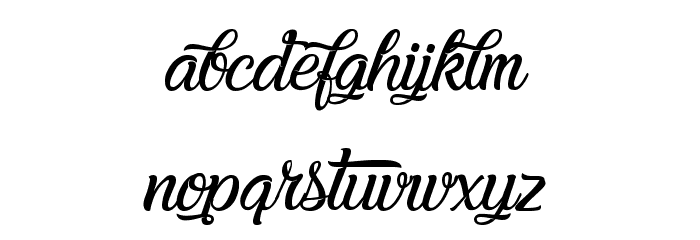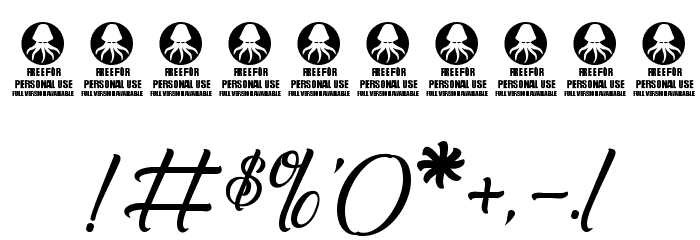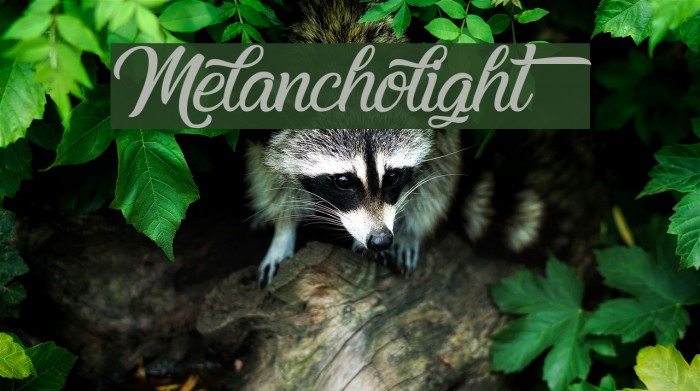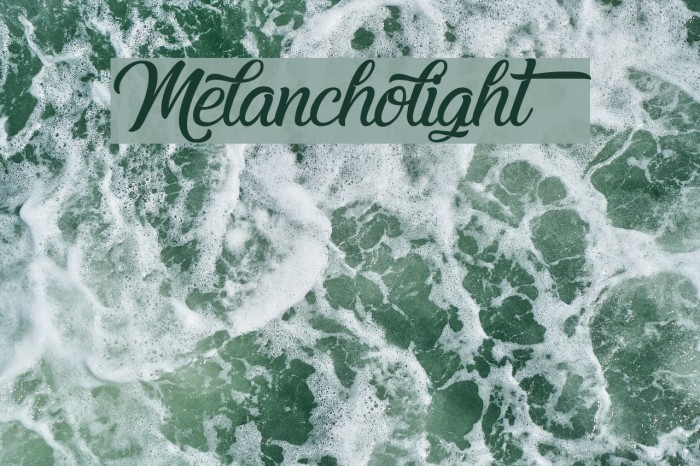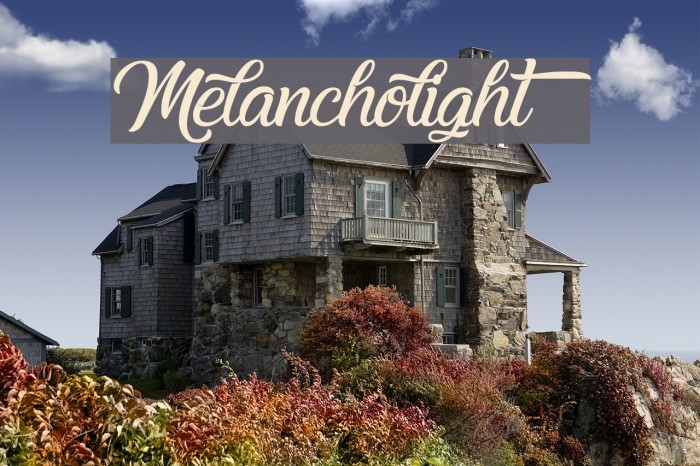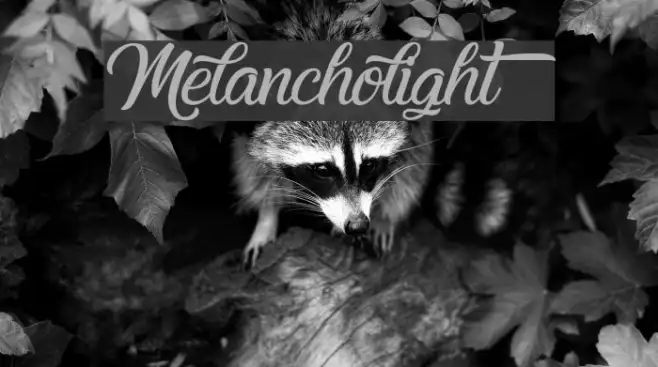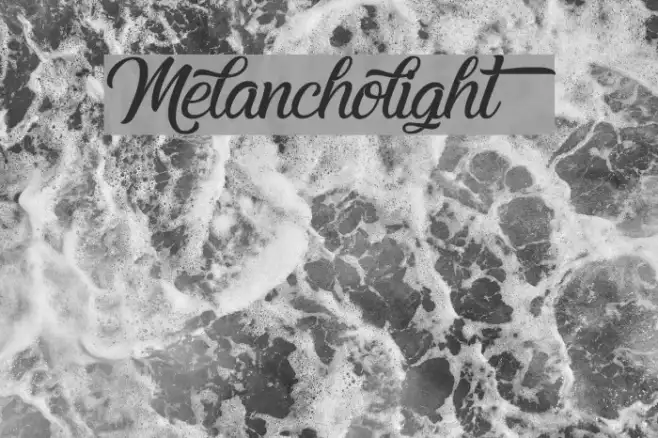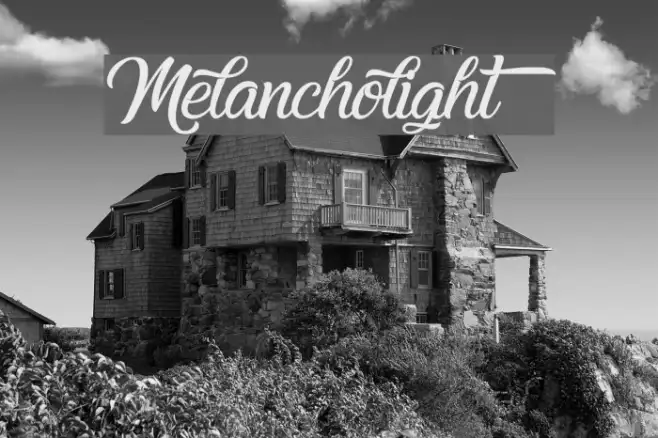
Melancholight Font
This font features an elegant, flowing script style with a sense of sophistication and grace. The uppercase letters are bold and sweeping, with intricate loops and flourishes that add a decorative touch. The lowercase letters maintain a consistent style, with smooth, connected strokes that create a cohesive look. The numbers and special characters are designed to match the overall aesthetic, providing a harmonious appearance across all elements. This font is ideal for projects that require a touch of elegance and refinement.
An elegant script font with flowing, decorative strokes.
- Font: Melancholight
- Proposed Projects: Ideal for wedding invitations, elegant branding, greeting cards, and upscale packaging.
- Category: Script
- Overall Style: Elegant, Decorative
- Use Case: Logos, Invitations, Decorative Text